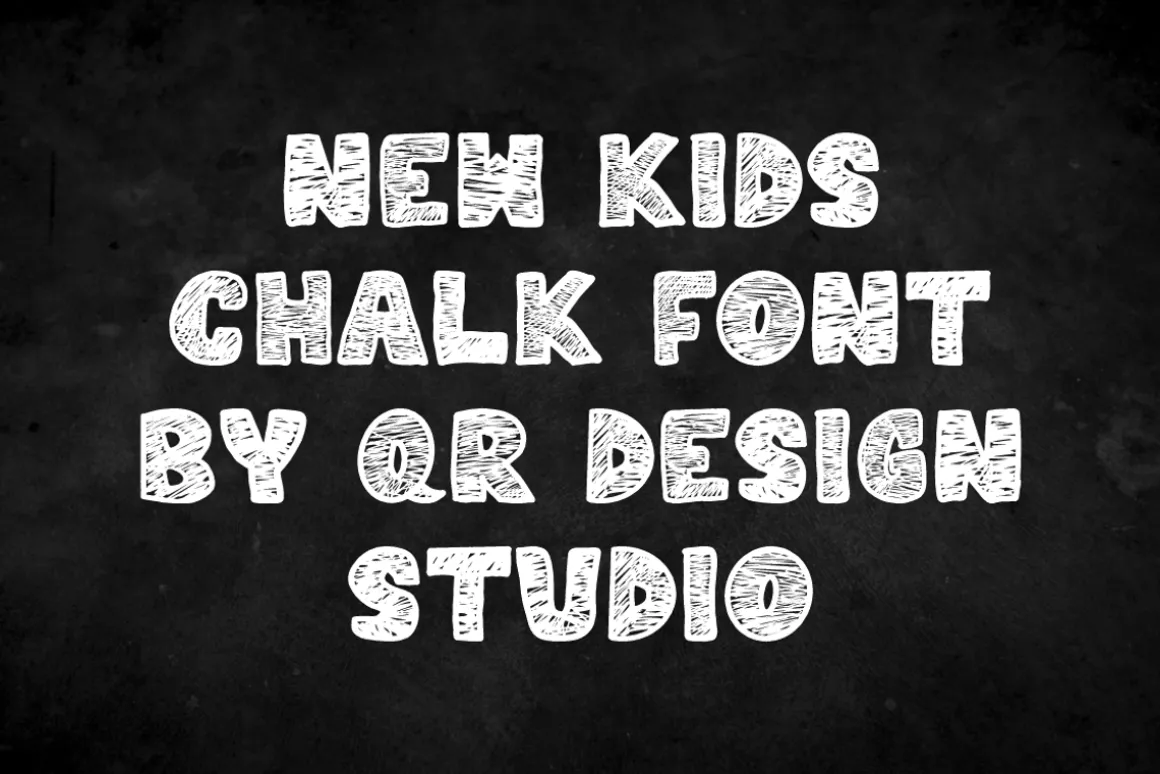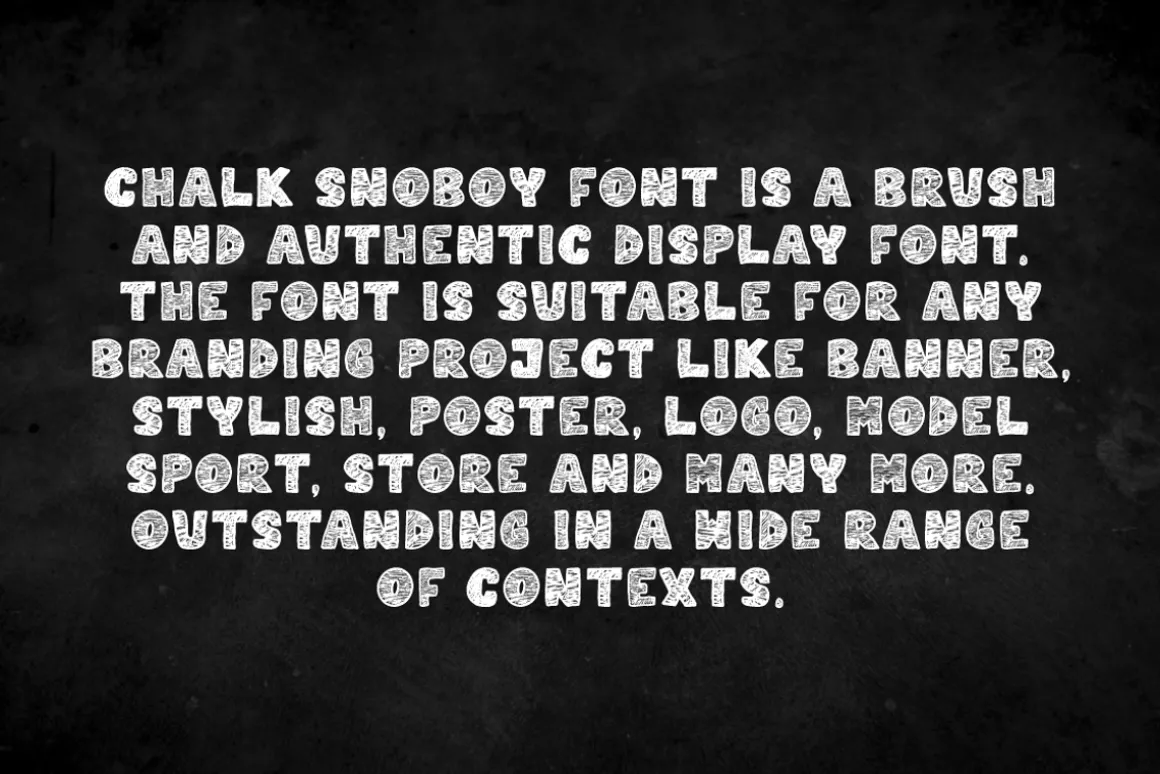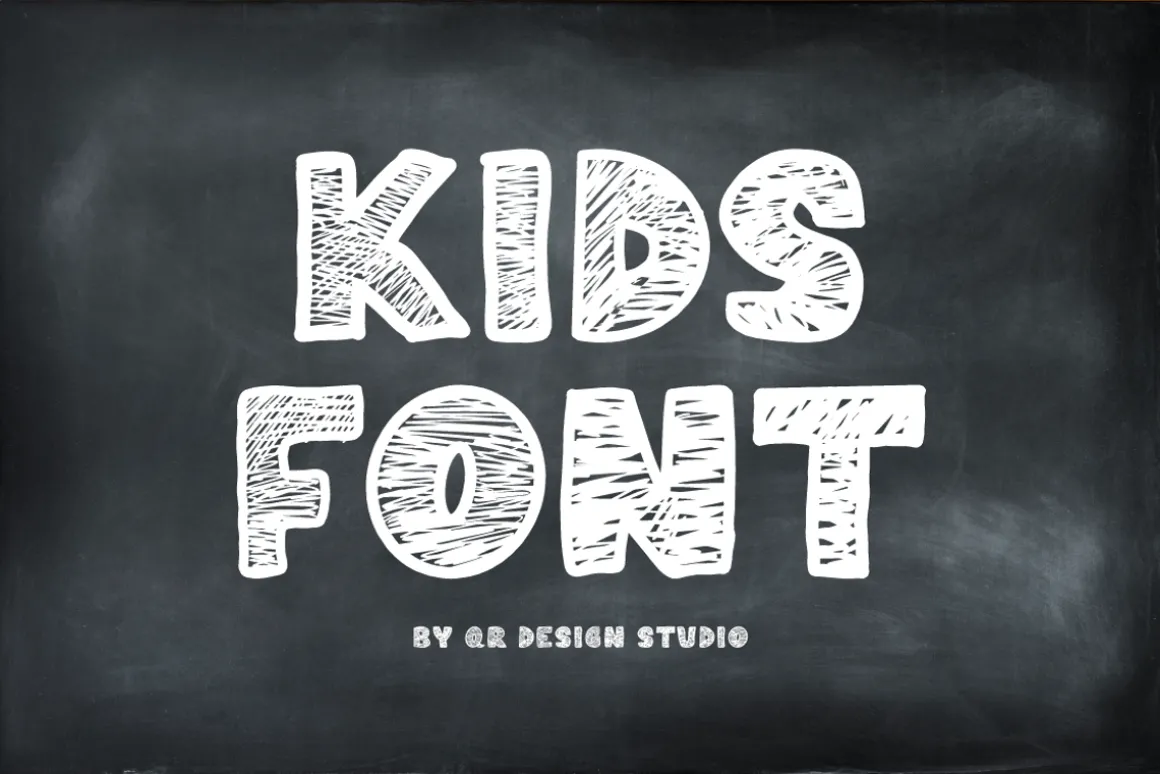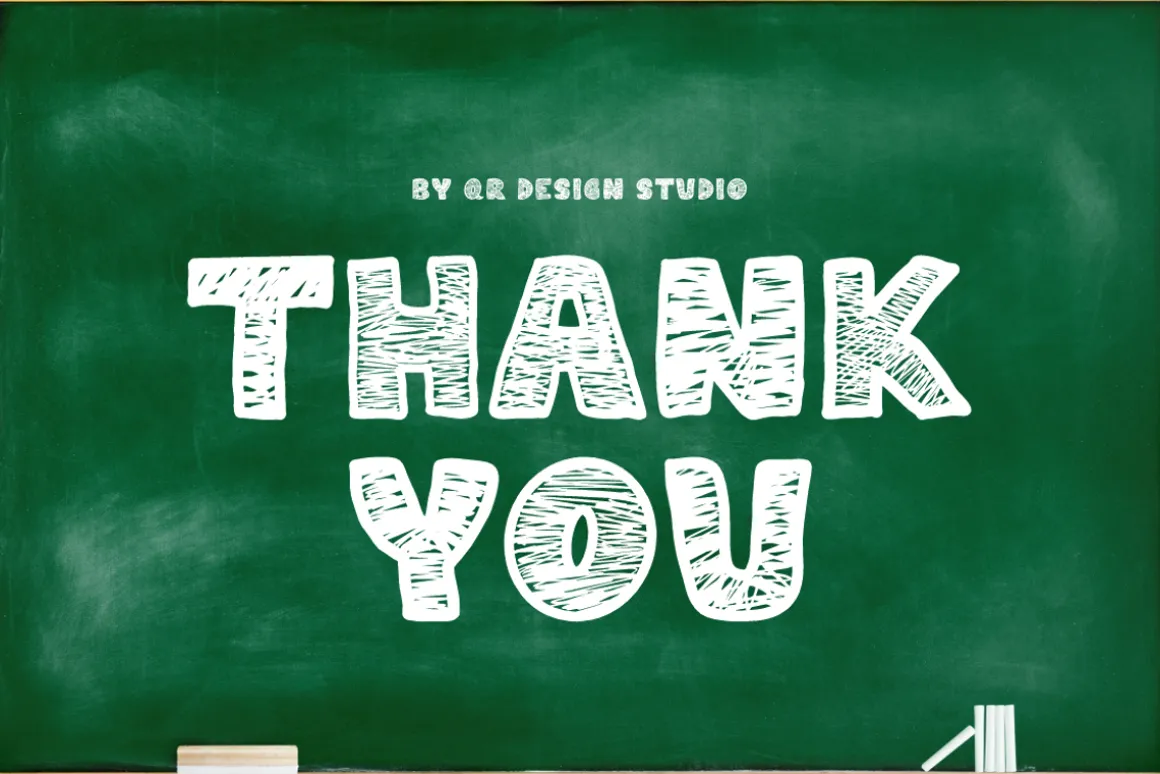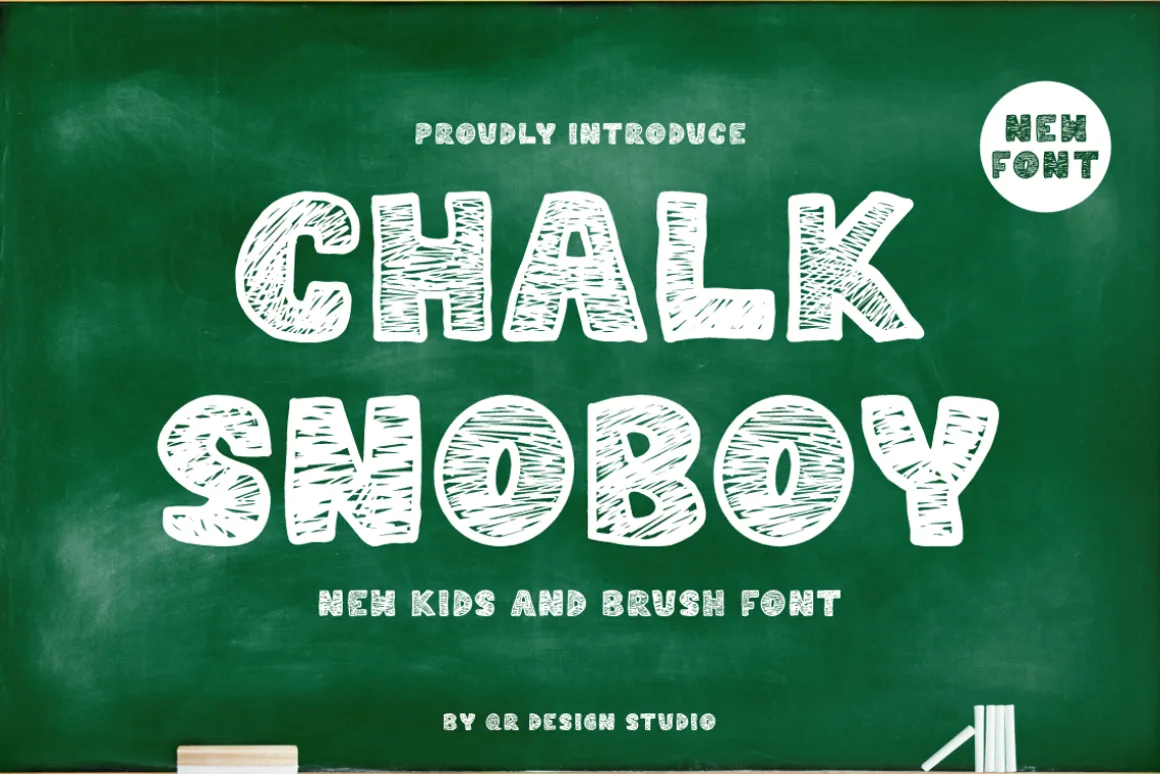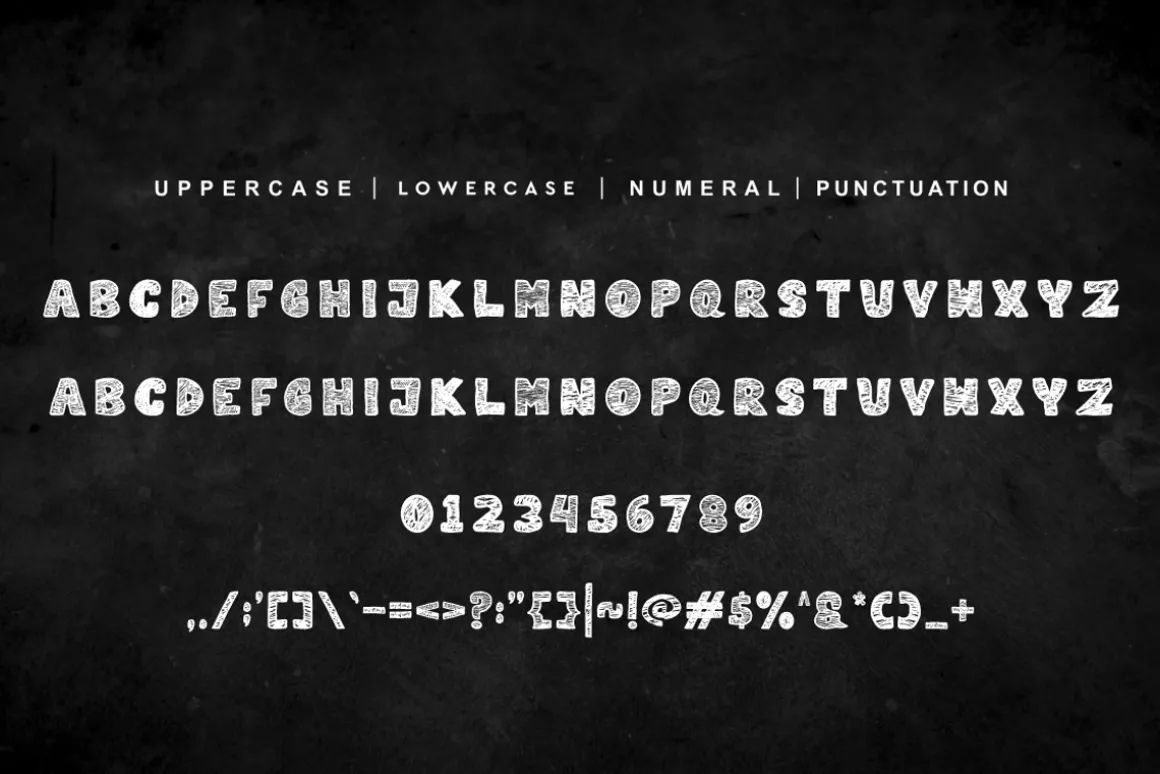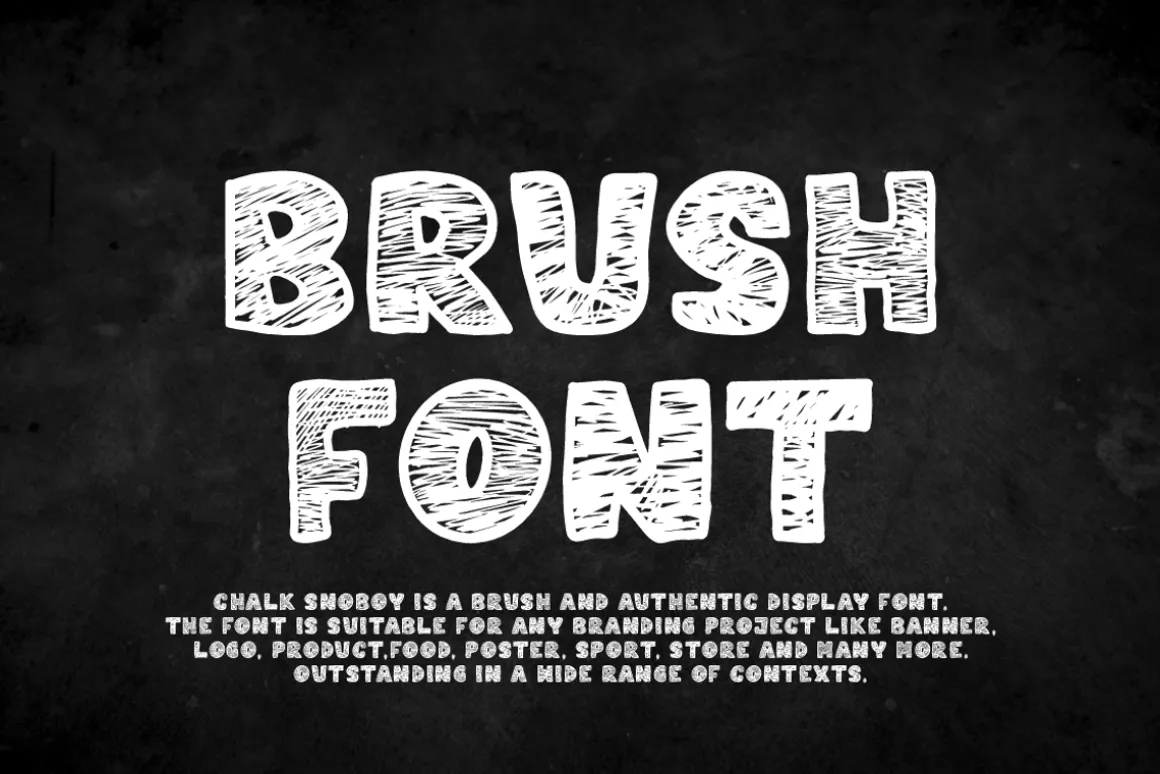
Chalk Snoboy Font is a Brush and authentic display font.The font is suitable for any branding project like kids, food, poster, logo, sport, and many more.Outstanding in a wide range of contexts.